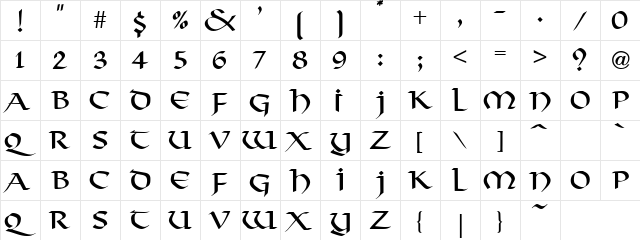
Bold Valpayee Regular
Design Context for Bold Valpayee Typeface
Bold Valpayee is a composed and adaptable typeface that performs quietly and consistently across a wide range of design contexts. Its bold stroke weight gives it real presence on the page.
Pro Tip: Pair Bold Valpayee with a font of contrasting weight or personality to build a more expressive typographic hierarchy.